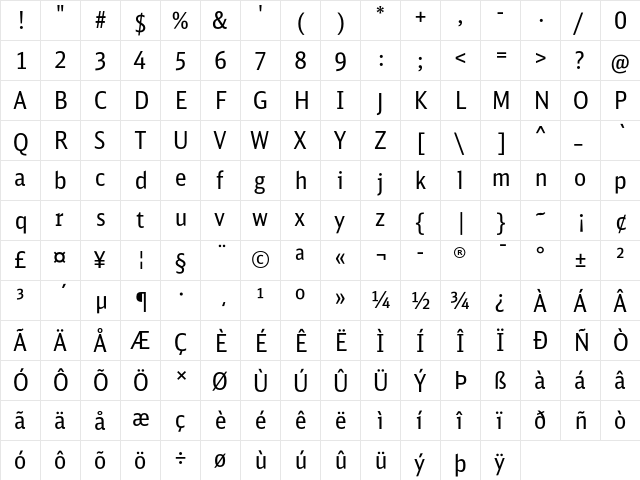
DB Sans Cond Regular
Design Context for DB Sans Cond Typeface
DB Sans Cond is a composed and adaptable typeface that performs quietly and consistently across a wide range of design contexts. The condensed width makes it efficient for tight spaces without sacrificing legibility.